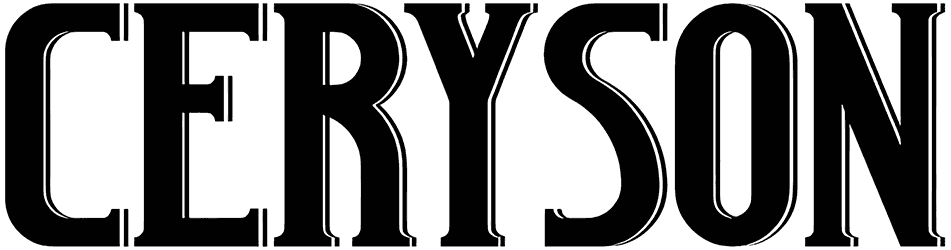
Ceryson Font
Vintage styles are always one of the most popular visuals, and if you like to have such a form for your design, this retro font would be a nice offer. This title font can give an eye-catching vibe to your intended words. There is no support for lowercase letters, numbers, and punctuation marks, but the Ceryson can add a unique and memorable face to your carnival poster.